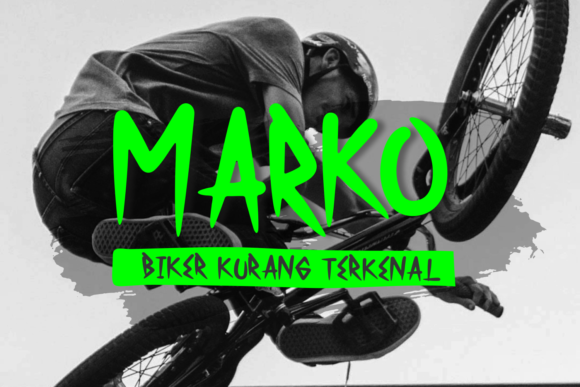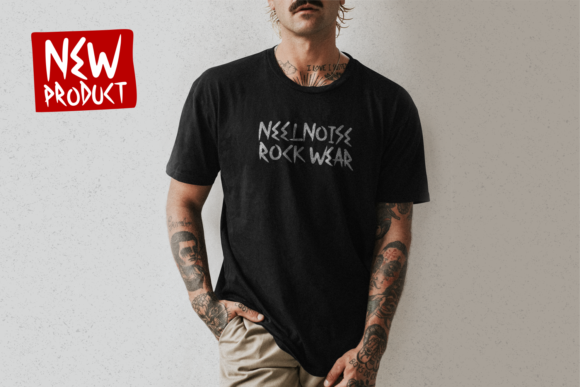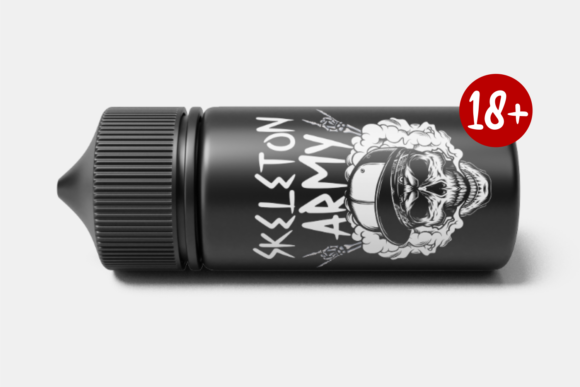
Introduction to Holy Trouble Font
Have you ever been brainstorming ideas for your next creative project, only to be struck by a burst of inspiration that sends you scrambling for the perfect font to bring your vision to life? That’s exactly what happened to us when we stumbled upon the Holy Trouble Font.
This spooky display font is a game-changer for designers looking to add an extra layer of eeriness to their work. With its high-quality design and transparent background, Holy Trouble Font is the perfect addition to any project that requires a touch of the unknown. Whether you’re working on a horror movie poster, a t-shirt design, or a spooky-themed craft, this font is sure to deliver.
Key Features of Holy Trouble Font
- Unique, hand-drawn style with a transparent background for flexibility
- Perfect for designers looking for a distinctive, one-of-a-kind font
- Great for use in logos, branding materials, and other design elements requiring a bold, creative touch
Honest Review: Holy Trouble Font
As a designer, I’m always on the lookout for unique and high-quality design resources to enhance my creative projects. The Holy Trouble Font is one such find that caught my attention. With its quirky and playful vibe, this font is perfect for those who want to add some whimsy to their designs.
What works well: ✨ The font comes with a transparent background, making it easy to use in various design scenarios. The high-quality design ensures that the font looks crisp and clear, even at larger sizes. I also appreciate the fact that it’s free to download, making it an excellent resource for designers on a budget.
- Perfect for creative projects that require a playful touch
Limitations: ⚠️ While the font is free to download, it may not be suitable for more formal or professional designs. Additionally, the font’s quirky nature may not appeal to all designers or design projects.
Overall impression: I’m impressed with the Holy Trouble Font’s unique charm and high-quality design. While it may have some limitations, it’s an excellent resource for designers who want to add some personality to their creative projects.
The Holy Trouble Font is perfect for creative projects that require a bold and eye-catching design. Common use cases include social media graphics, posters, and presentations.